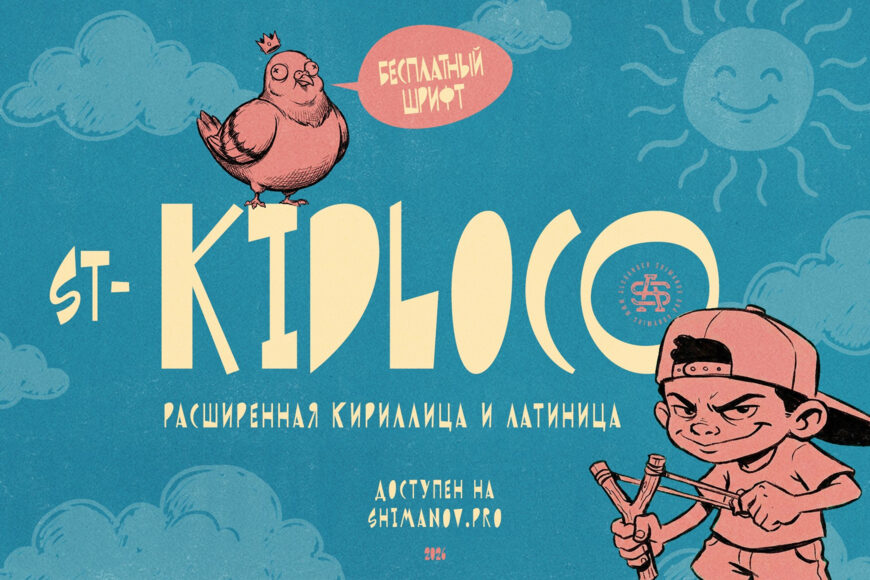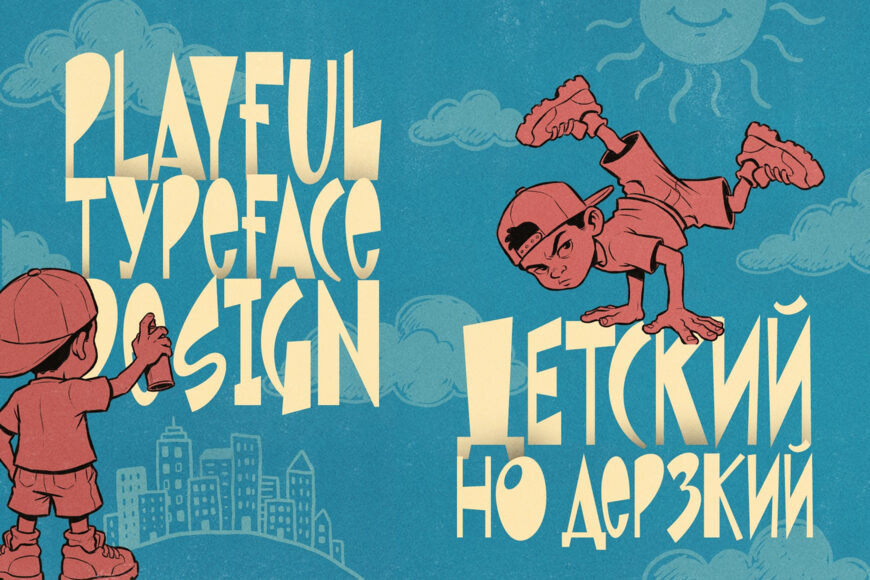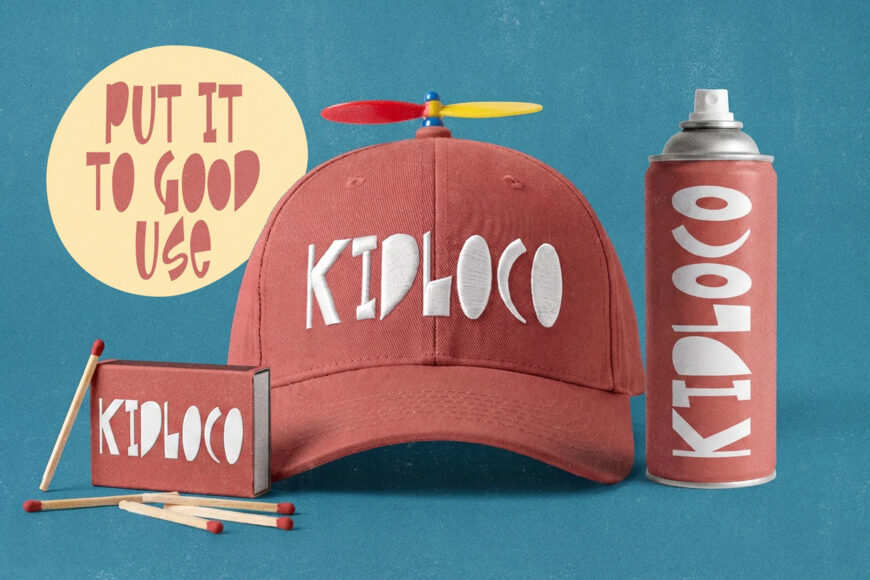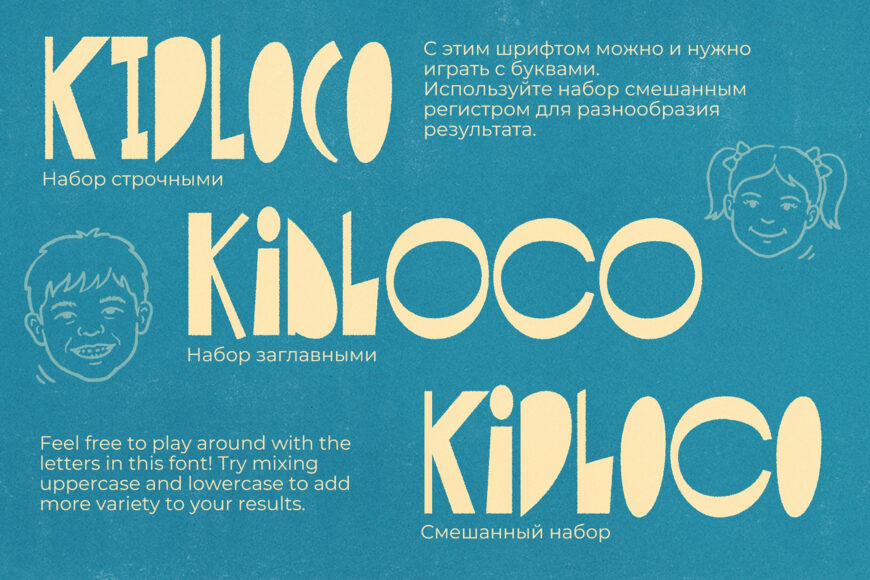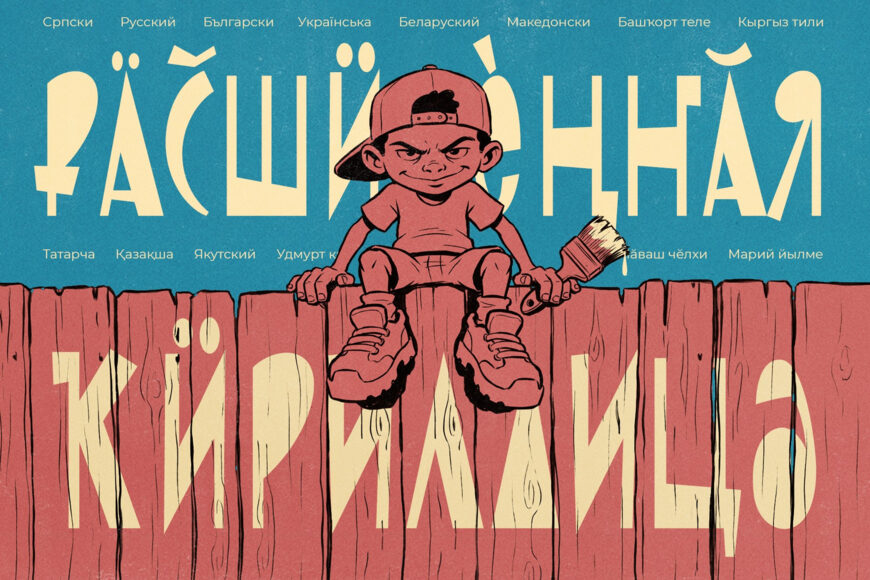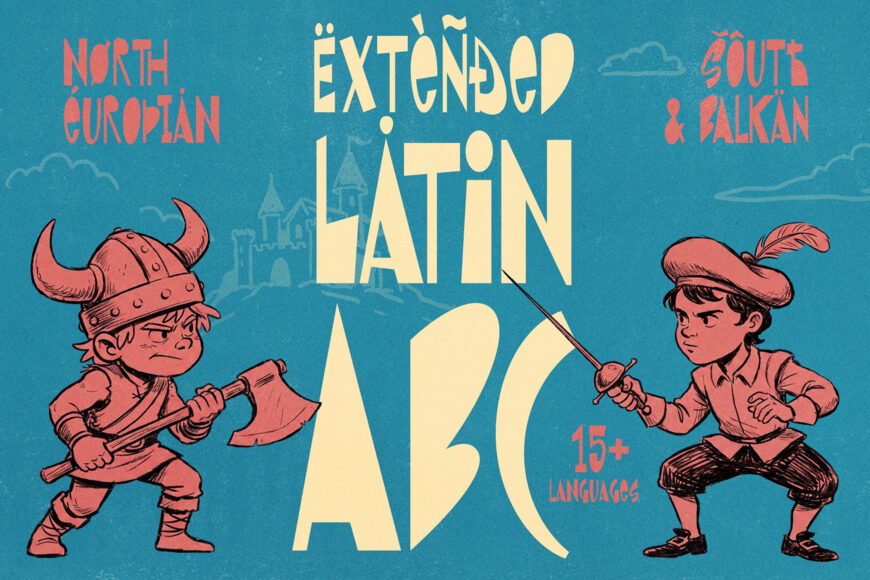
ST-Kidloco Font
Meet ST-Kidloco, a playful, slightly rebellious display font with plenty of personality. Its signature look comes from intentionally quirky lines and unpredictable proportions, making it a standout choice for bold logos, eye-catching headlines, and merch design.
To give you even more creative freedom, it includes uppercase letter alternates. It supports extended Latin and Cyrillic character sets, plus full punctuation and numbers.